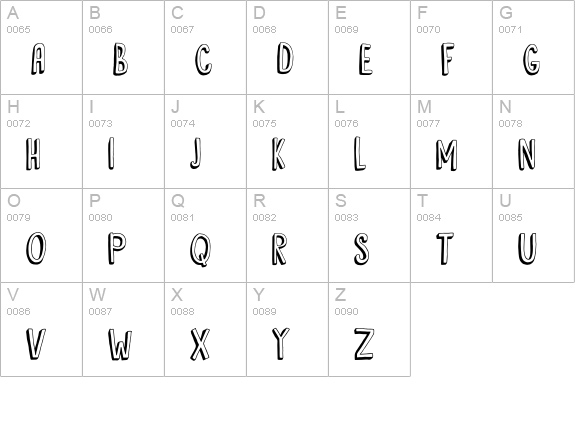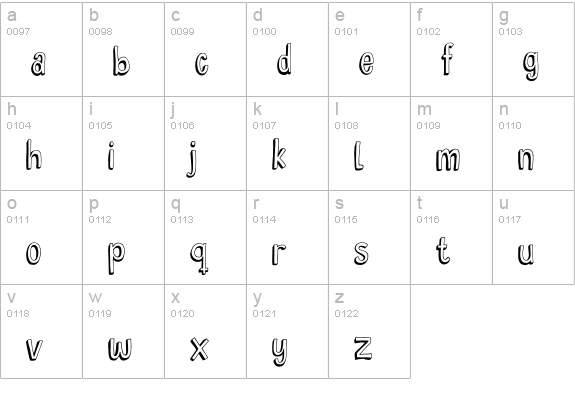
DK Hyggelig Font Details
DK Hyggelig font is a beautiful and versatile typeface that exudes warmth, coziness, and a sense of comfort. Designed with the concept of hygge in mind, this font is perfect for creating inviting designs that evoke feelings of relaxation and contentment. With its soft curves, gentle strokes, and friendly appearance, DK Hyggelig font adds a touch of charm and tranquility to any project. This font is not only visually appealing but also incredibly practical, making it suitable for a wide range of design applications. Whether you are working on branding, packaging, invitations, or social media graphics, DK Hyggelig font will bring an element of elegance and sophistication to your designs. What makes DK Hyggelig font even more appealing is that it is available for free! Yes, you read that right, this font can be freely downloaded at FontsMarket.com. With just a few clicks, you can add this delightful font to your collection and start creating stunning designs that capture the essence of hygge. So, if you're looking for a font that combines beauty, versatility, and free availability, look no further than DK Hyggelig font. Download it today and embrace the cozy charm it brings to your designs.